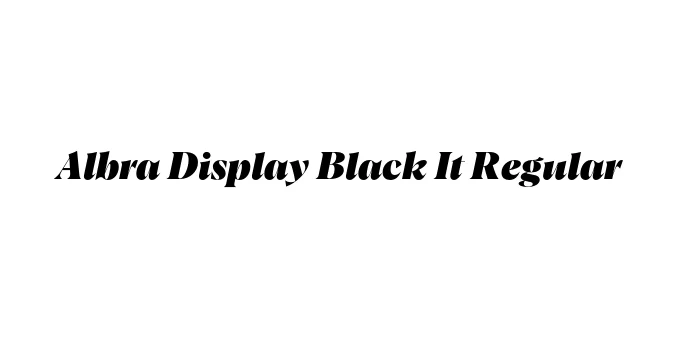
Albra Display Black It Regular
Designed by BumBumType
| Category | Serif Display |
| Designer | BumBumType |
Albra Display Black Italic is a sophisticated serif typeface that represents the pinnacle of elegance and modern craftsmanship. Designed by BumBumType, this specific weight is characterized by its high contrast between thick and thin strokes, combined with sharp, expressive terminals that demand attention. The italicized version adds a dynamic, fluid movement to the heavy 'Black' weight, making it an exceptional choice for designers looking to blend authoritative power with a touch of artistic flair.
As part of the wider Albra collection, the Display version is optimized for large-scale application where its intricate details and refined curves can shine. It draws inspiration from classical transitional serifs while incorporating contemporary proportions that suit the digital age. This font has become a favorite in the high-fashion and luxury sectors, providing a timeless aesthetic that bridges the gap between traditional prestige and modern minimalism.
Albra Display Black It Regular Best Uses
Perfect for striking magazine headlines, covers, and layout introductions.
Ideal for high-end fashion logos, beauty product packaging, and premium identity systems.
Creates a bold and sophisticated visual impact for hero sections on modern websites.
The heavy italic weight is excellent for artistic posters and cinematic typography.